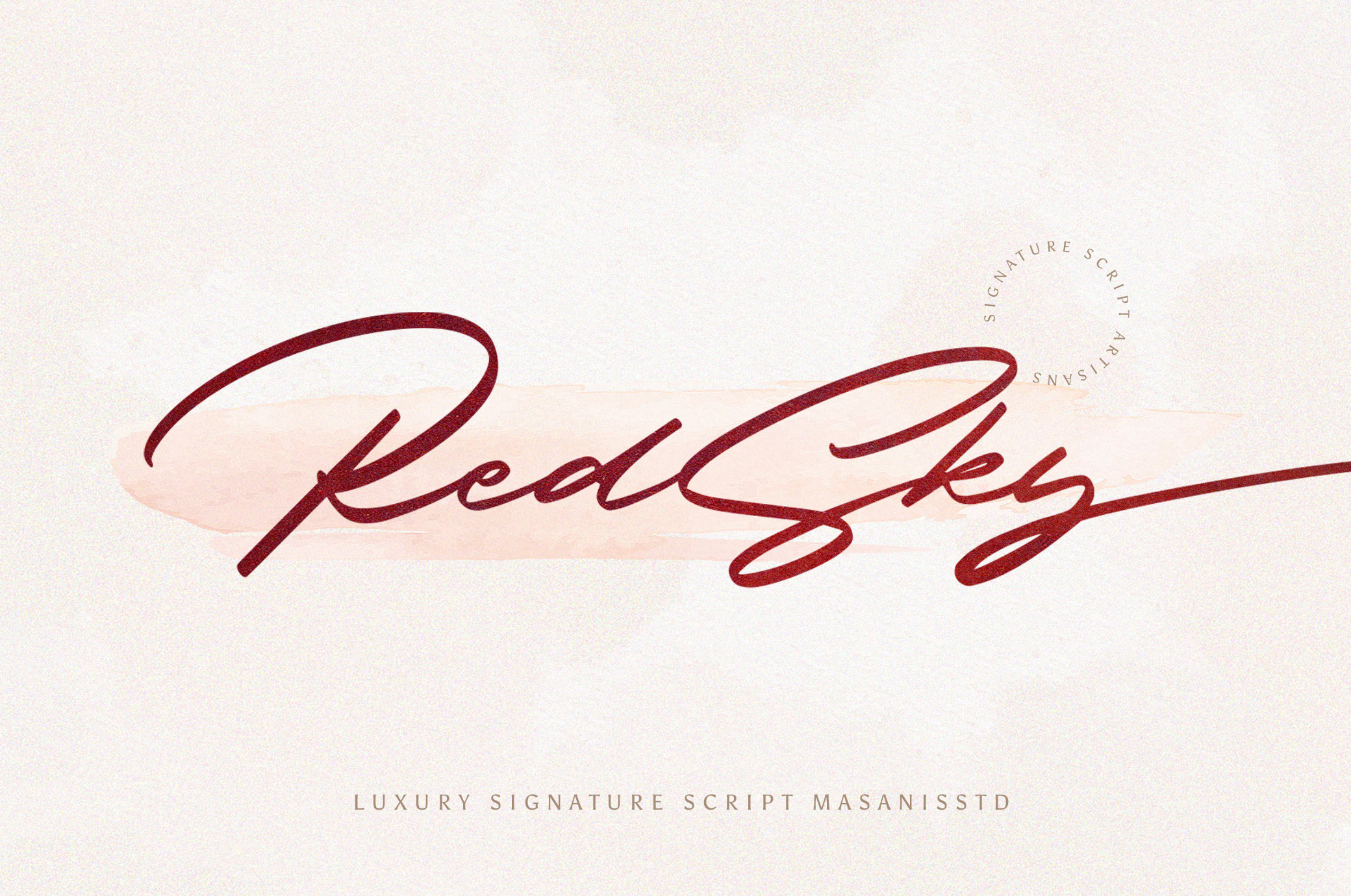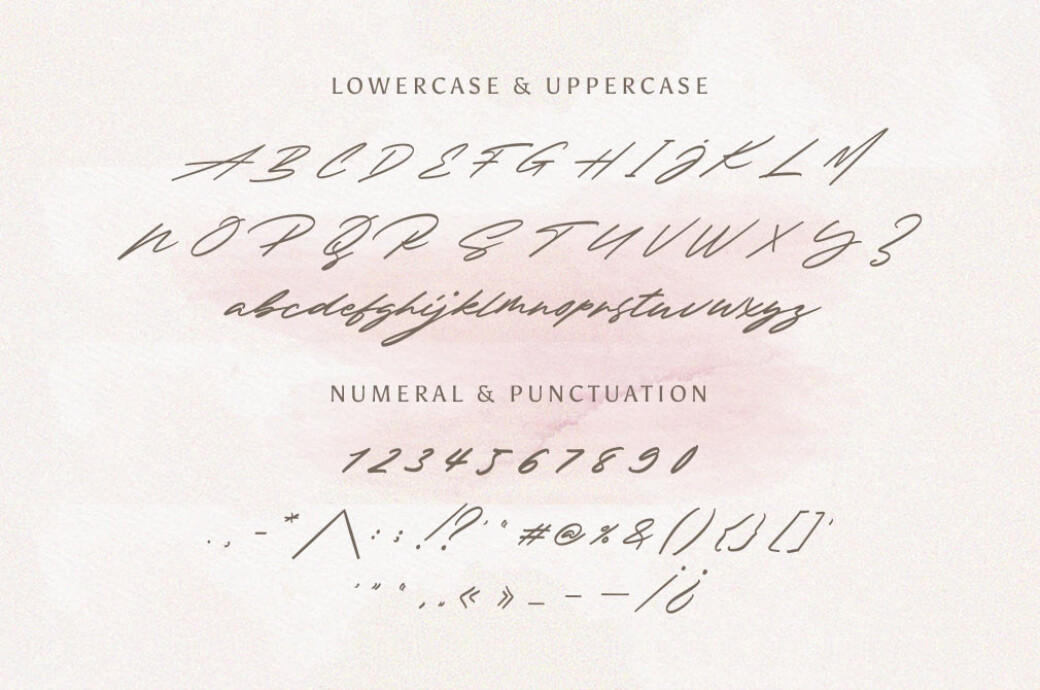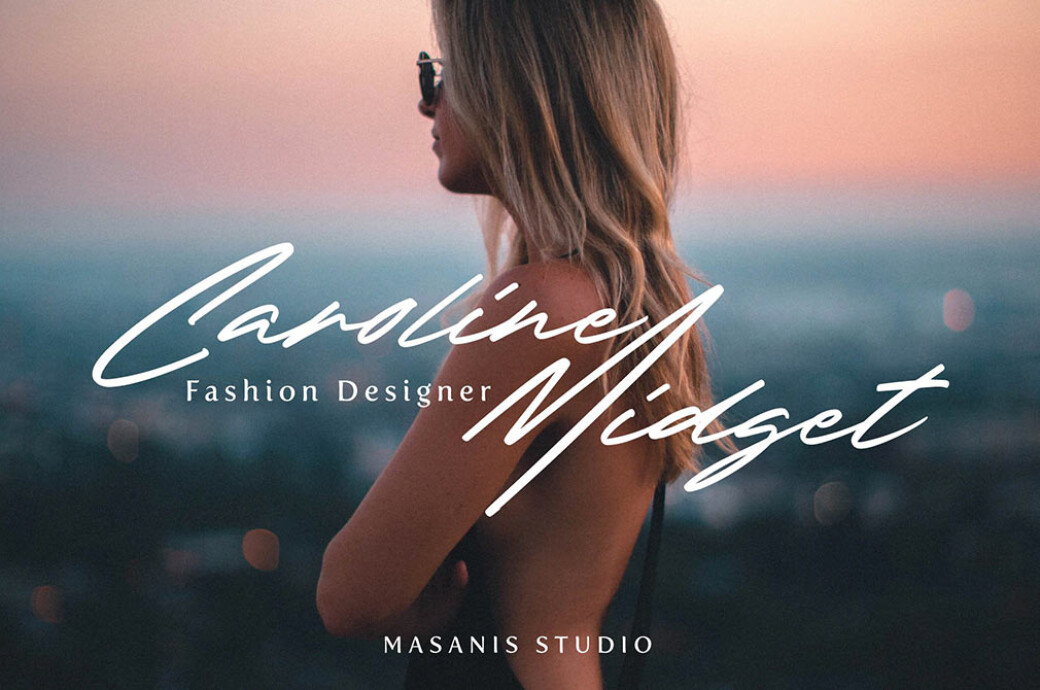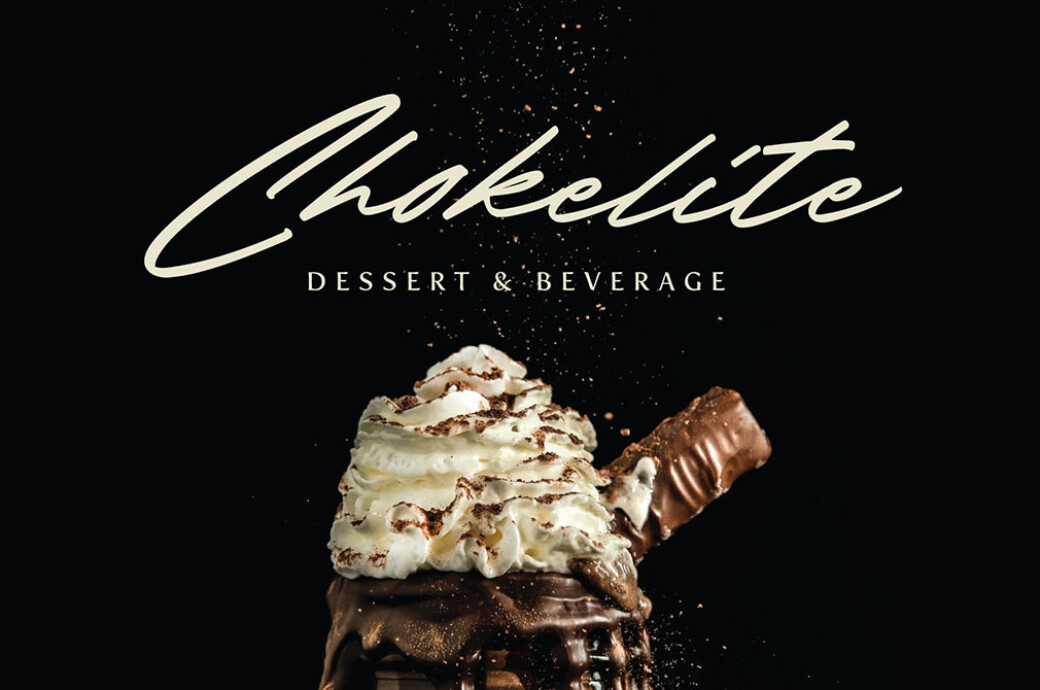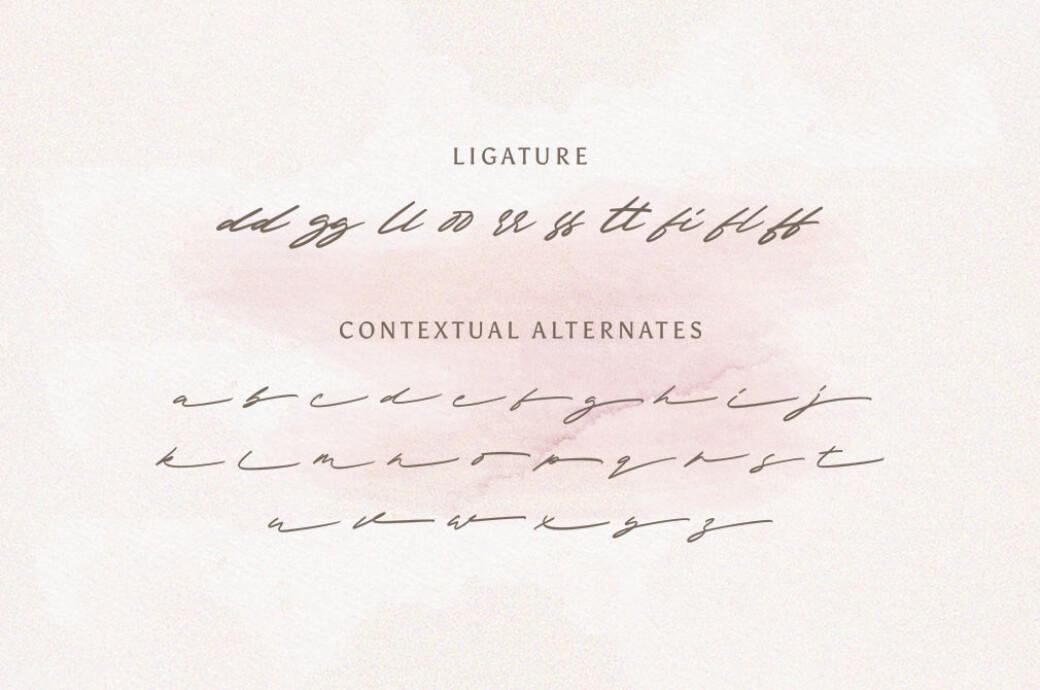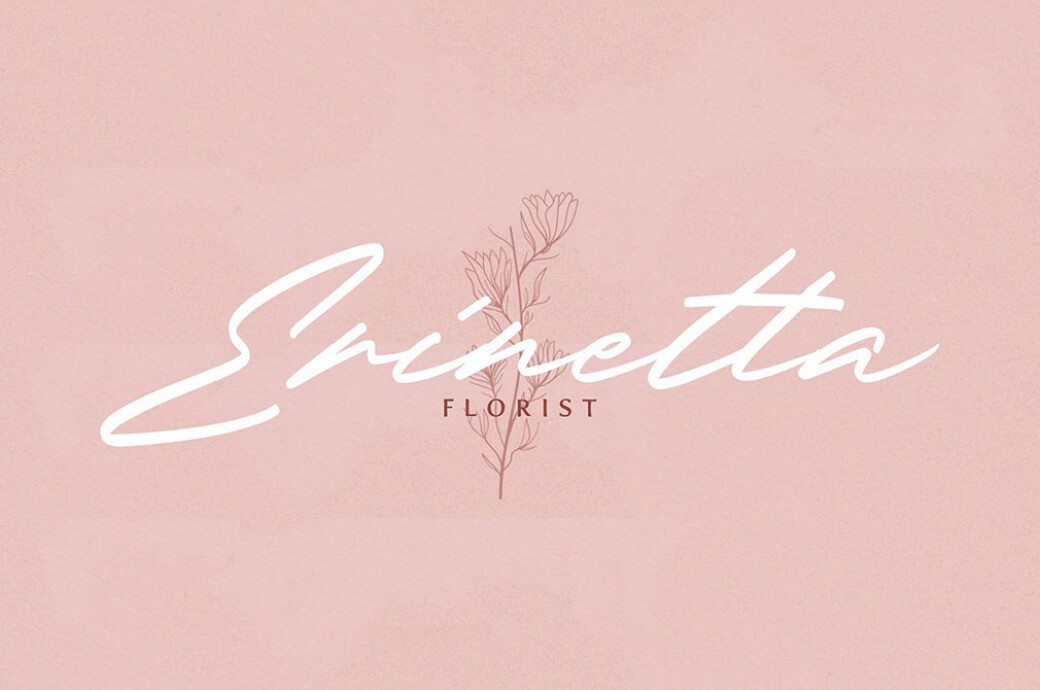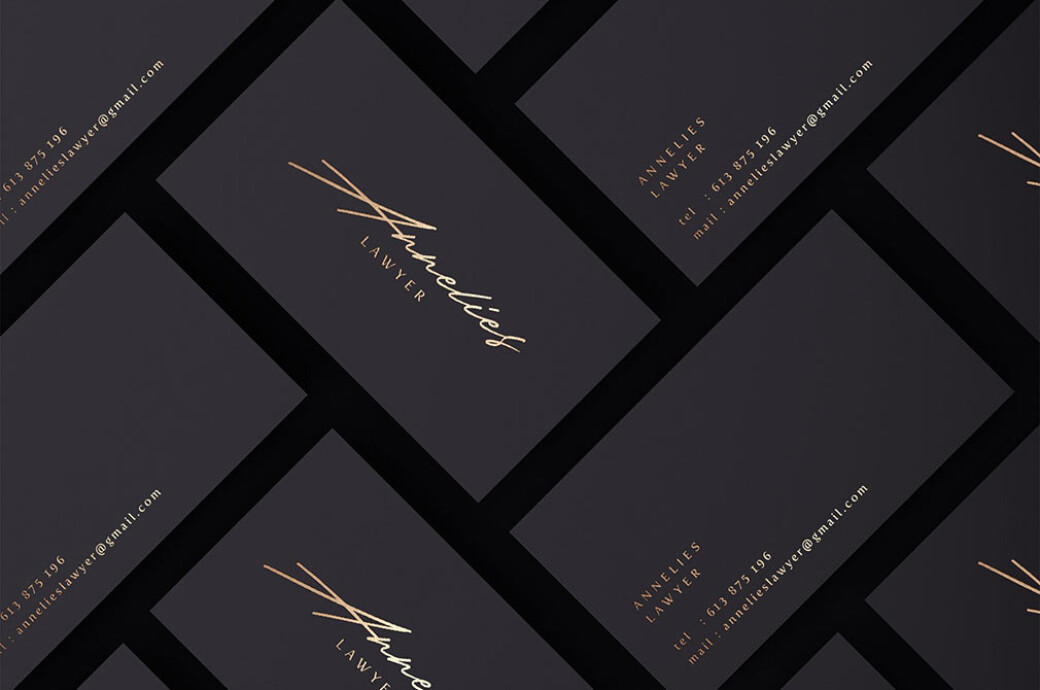
RedSky Signature Font
Meet a smooth handwritten font, defined by an elegant touch, perfect for your favorite projects. Fall in love with its incredibly distinct and timeless style and use it to create spectacular designs!It's important to have a readable, eye-catching, and easy to use script font. With the modern style it possesses and a special set of ligatures, RedSky is excellent for projects like creating a wedding invitation, header, editorial, logos, slider blog, social media, custom address, packaging, greeting cards, and so on. You can easily pair them with sans or serif fonts from all over the world to make your work more interesting!